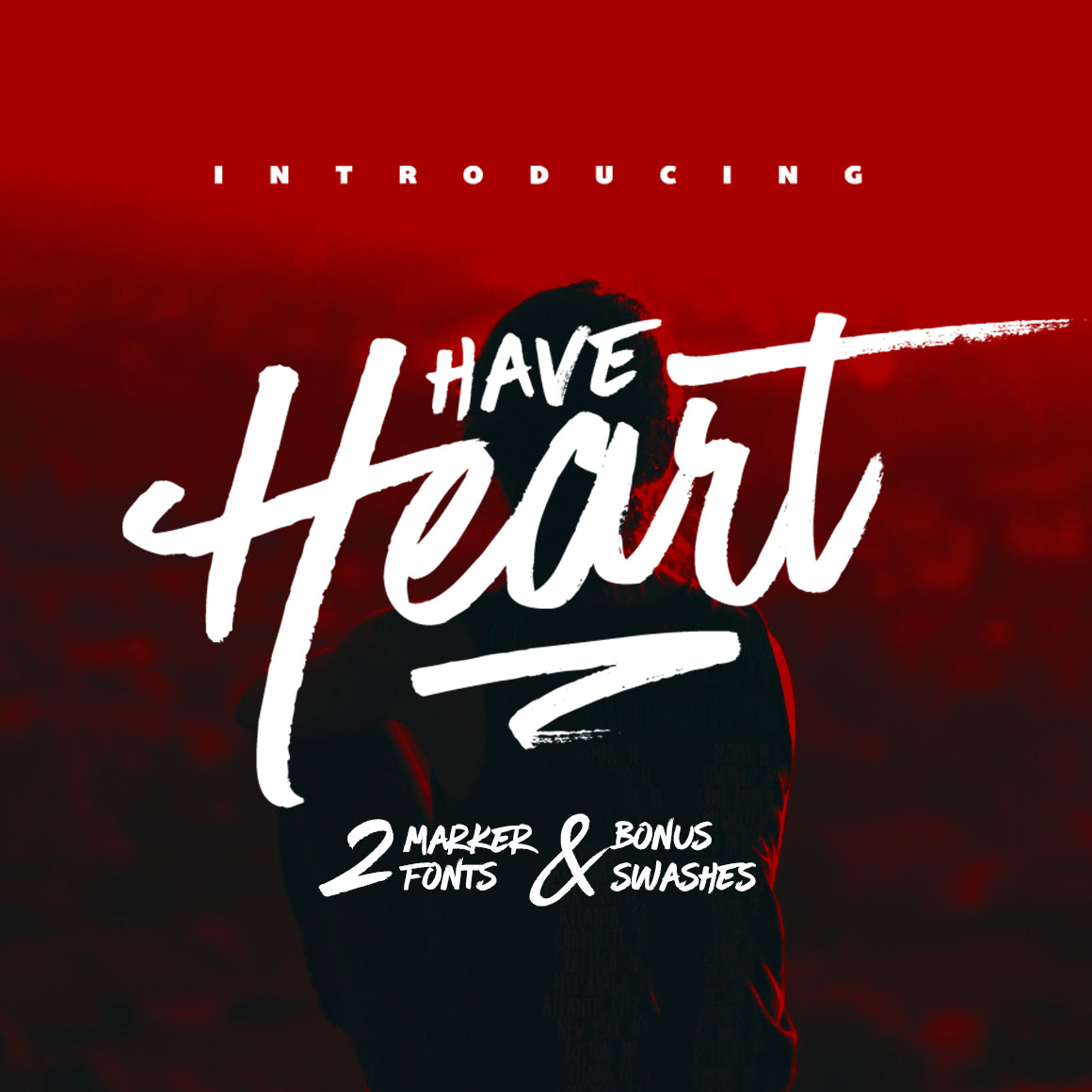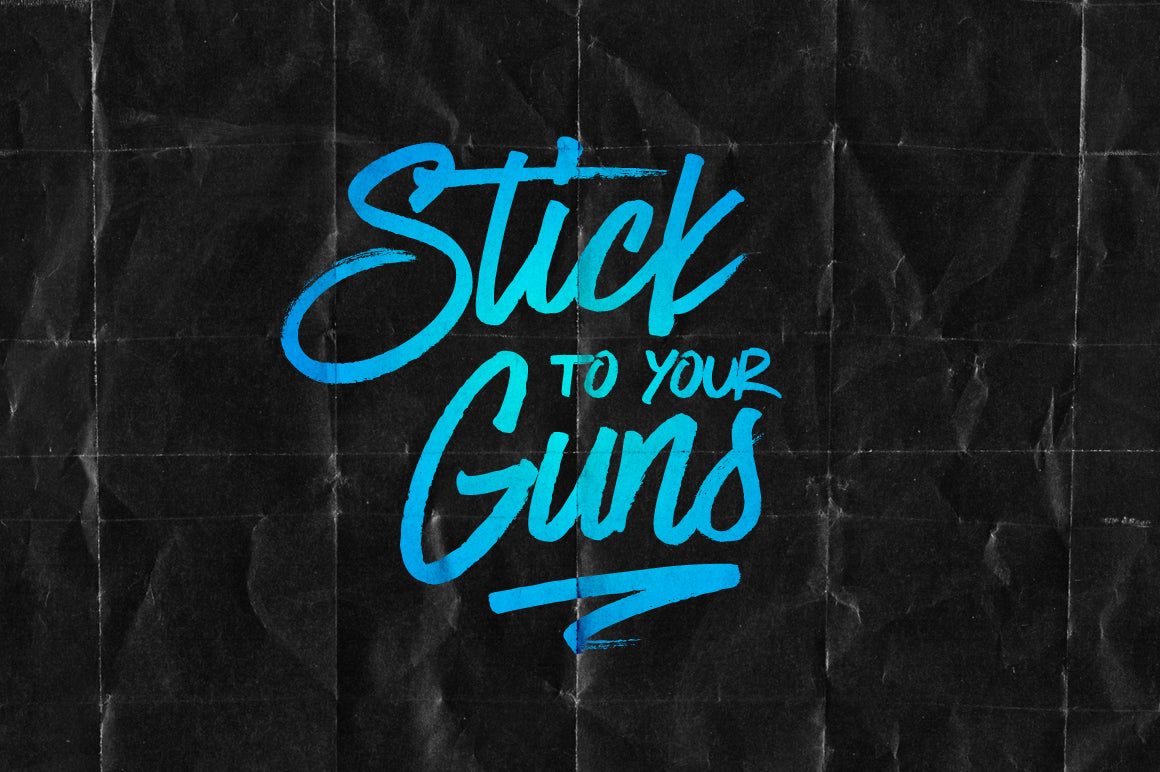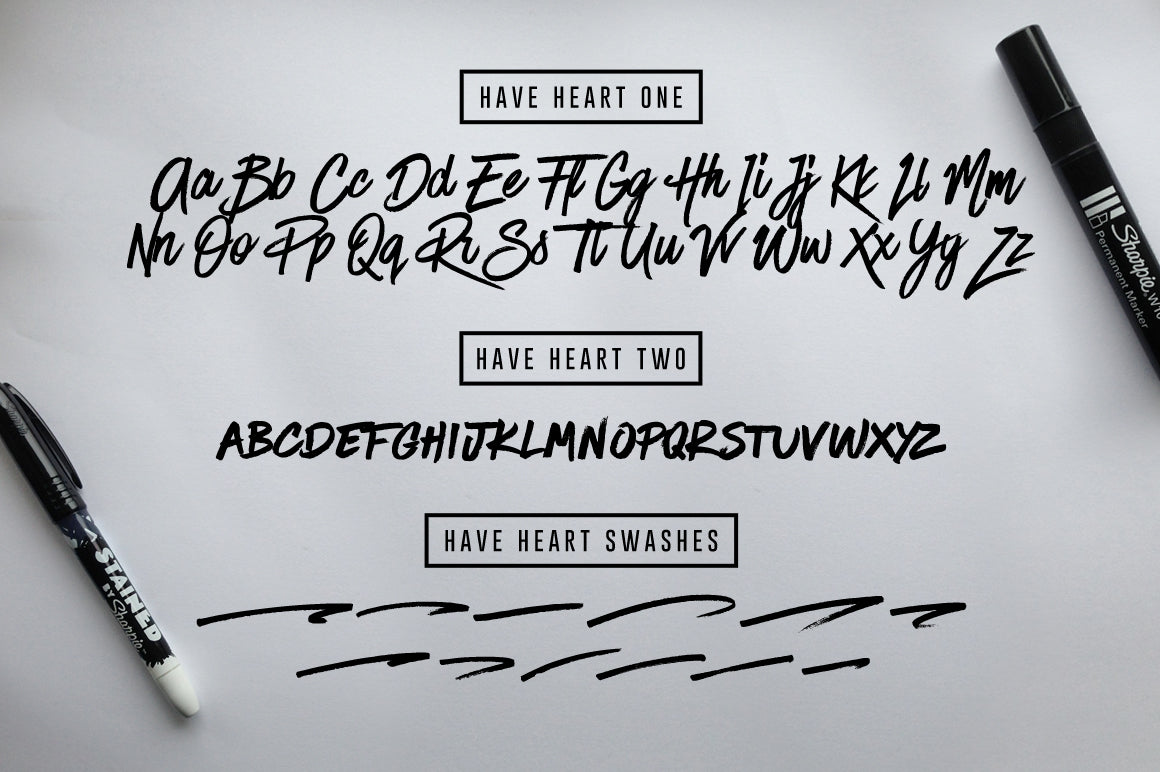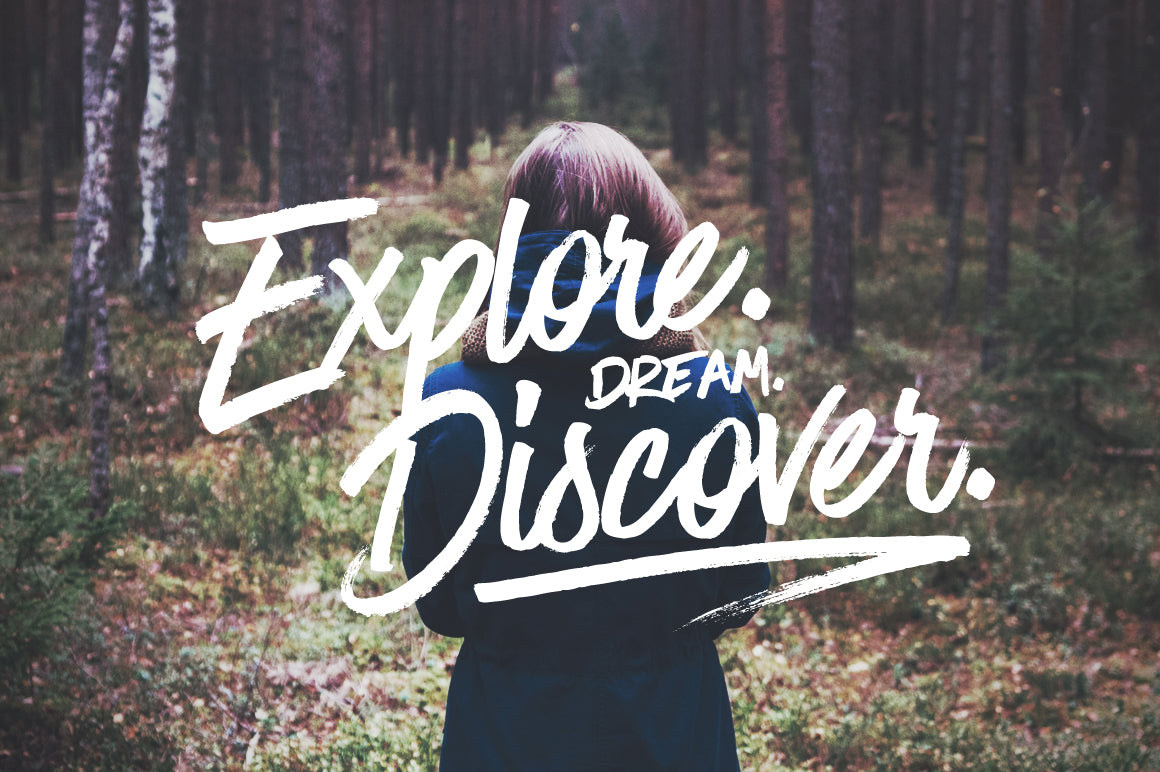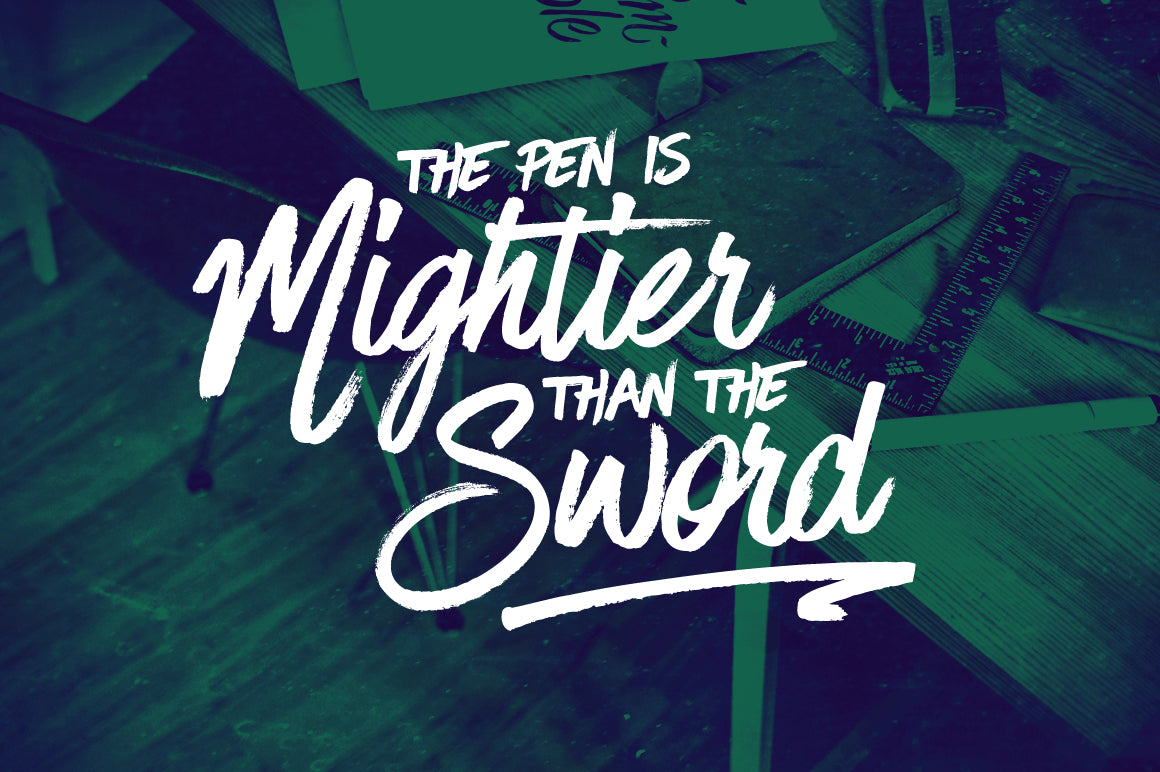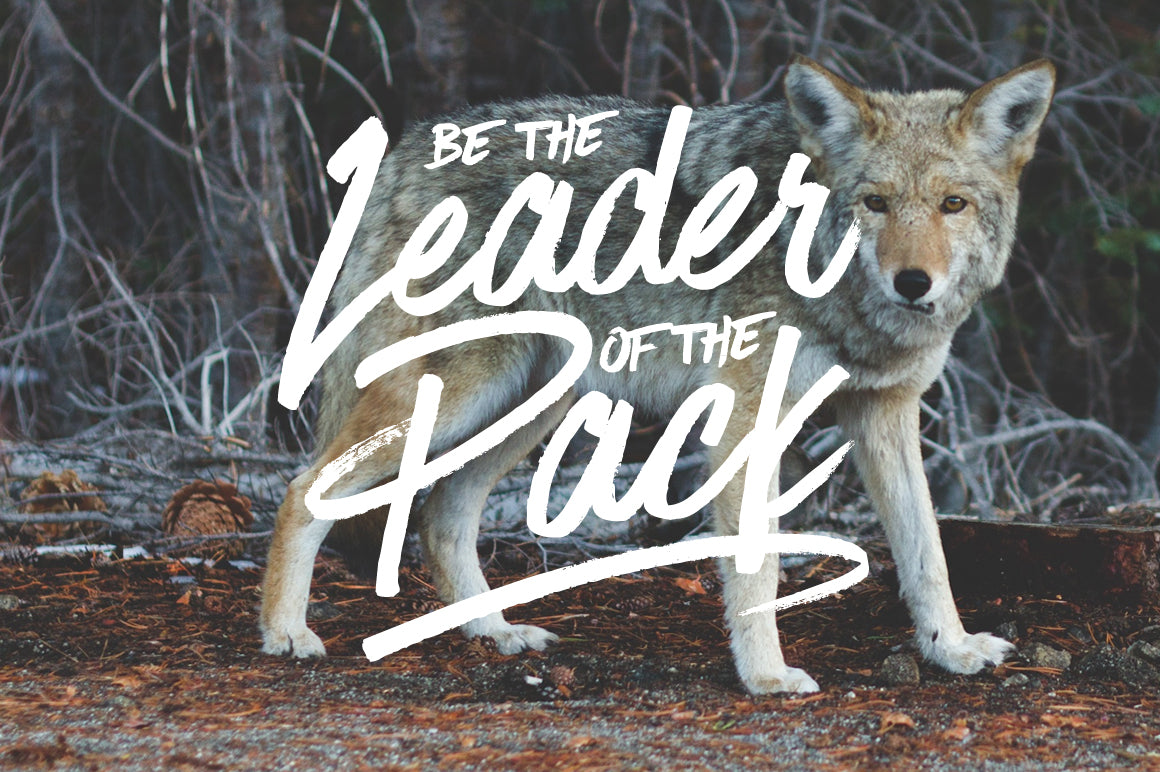
Have Heart Marker Font
The Have Heart Marker Font is a collection of two hand-made marker pen fonts designed for easy hand-lettering, featuring upper and lowercase characters, punctuation, numerals, and support for international languages. It includes 12 bonus swashes for added design flexibility, with TTF and OTF files provided for both fonts.